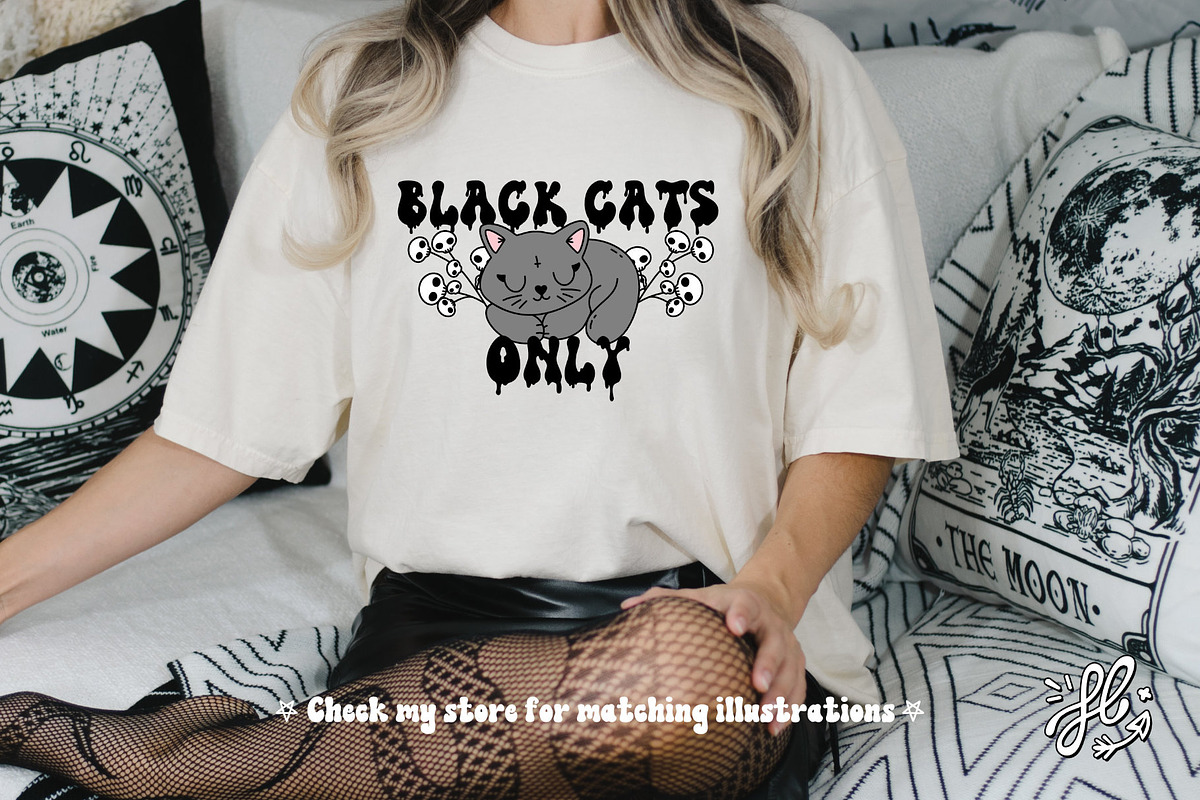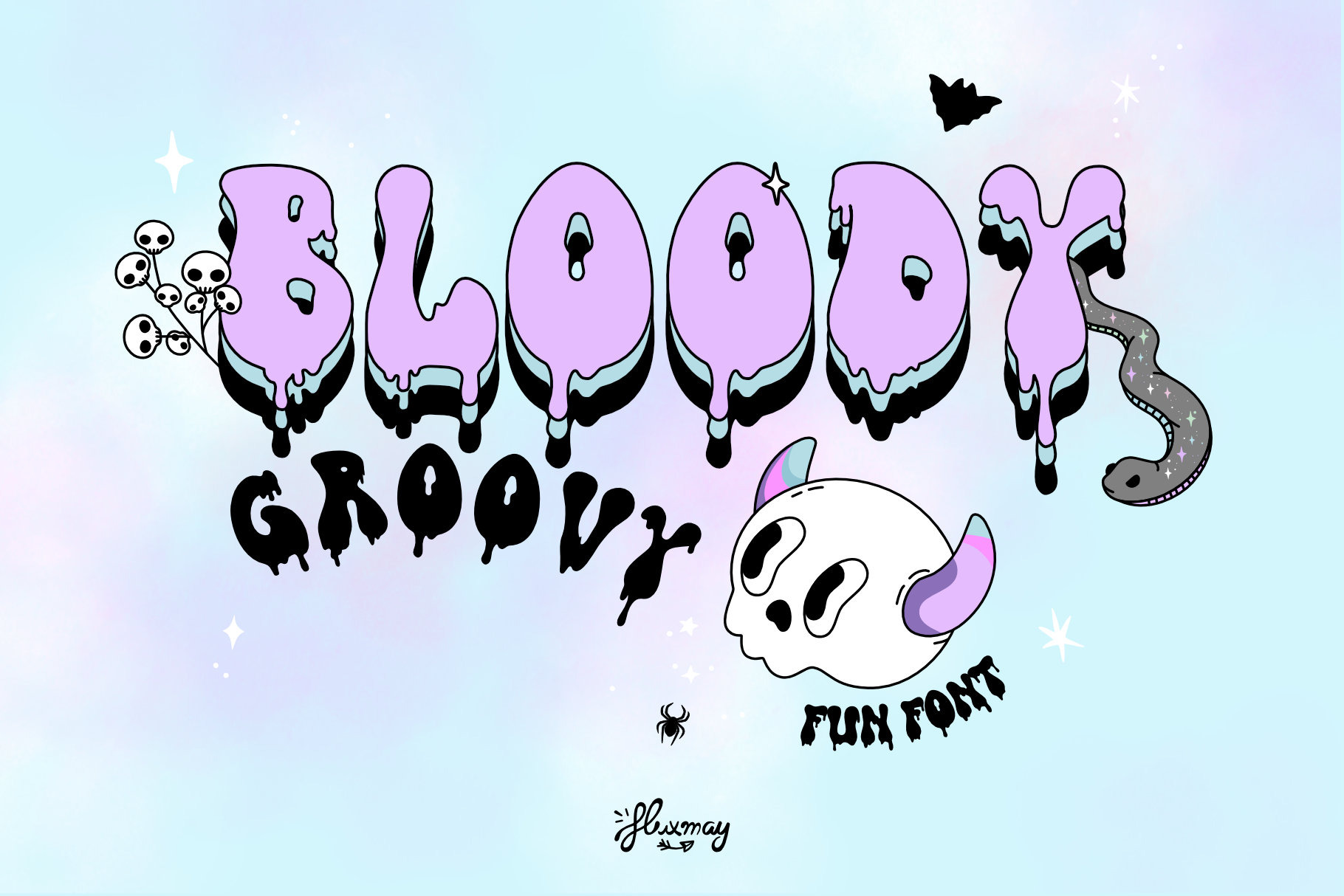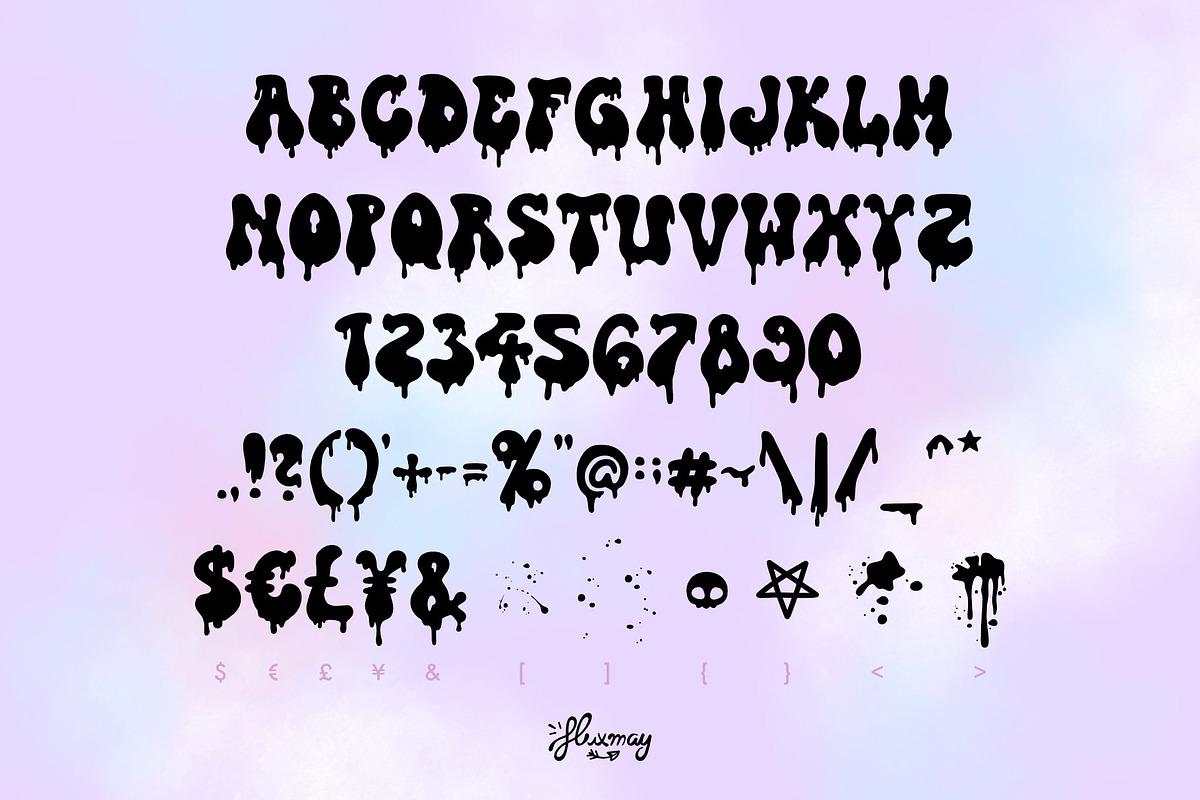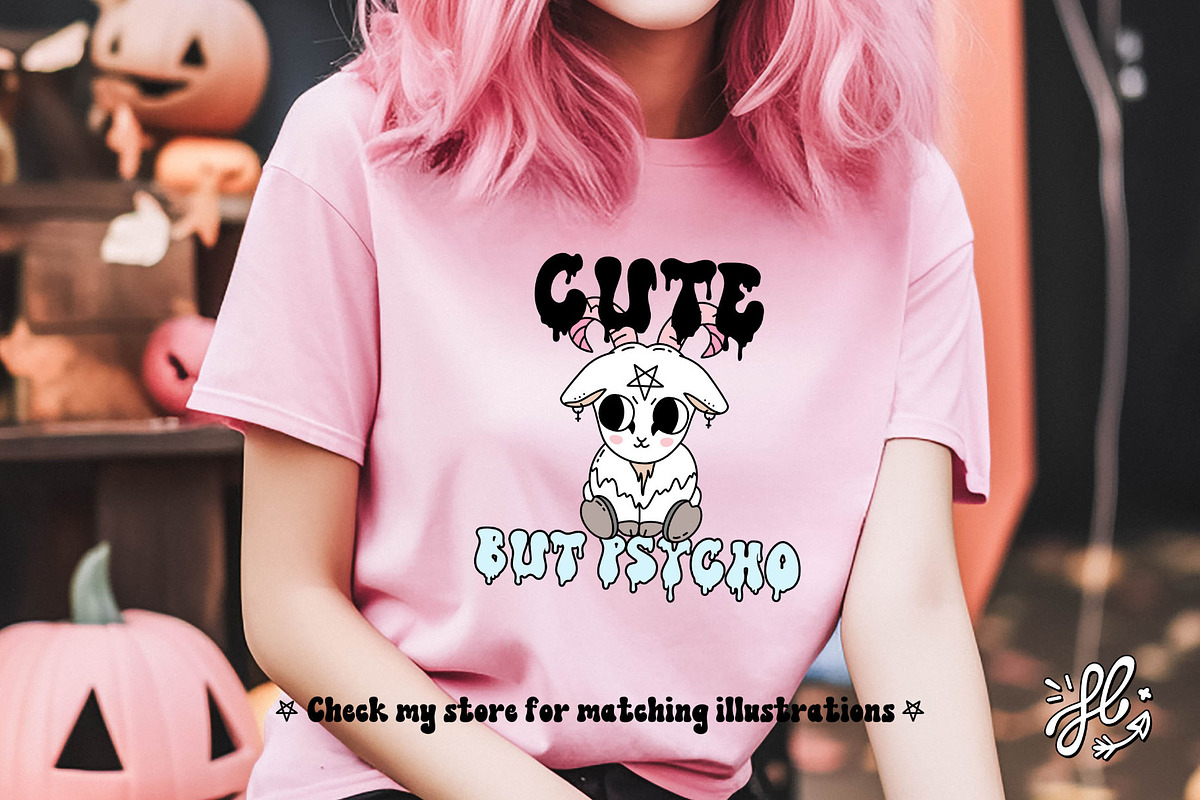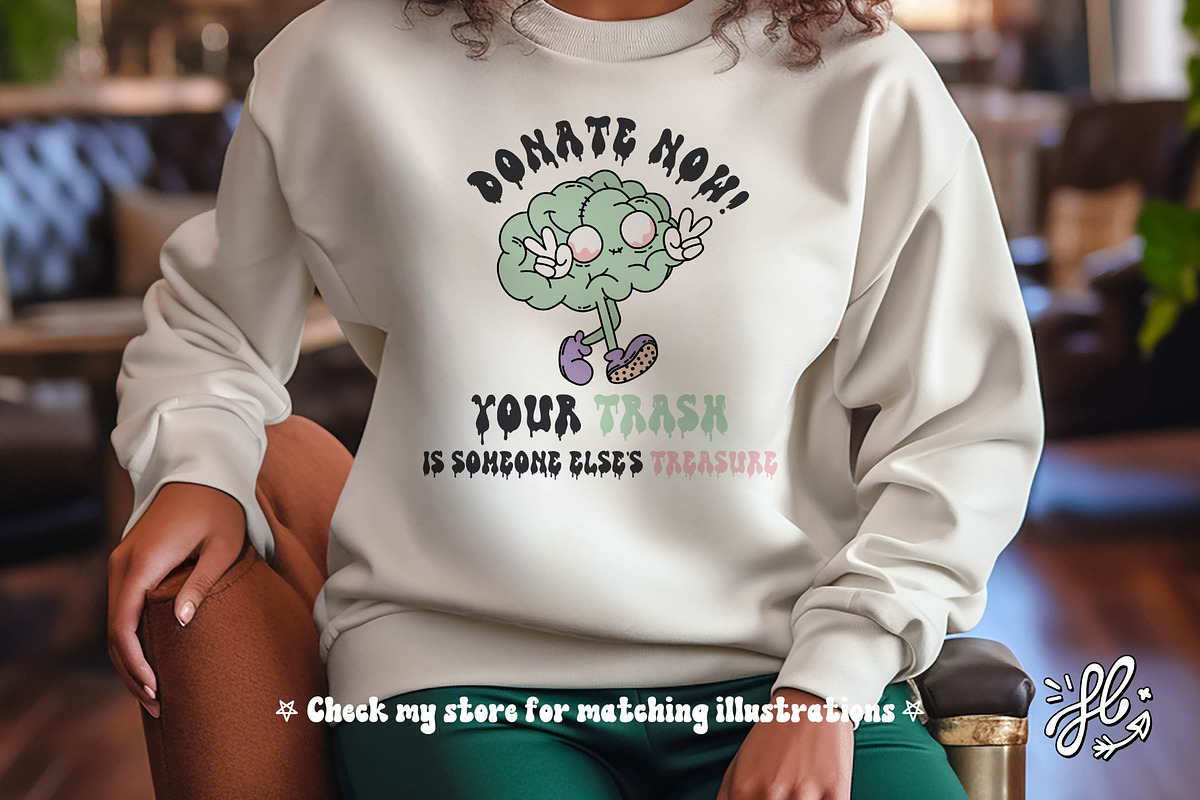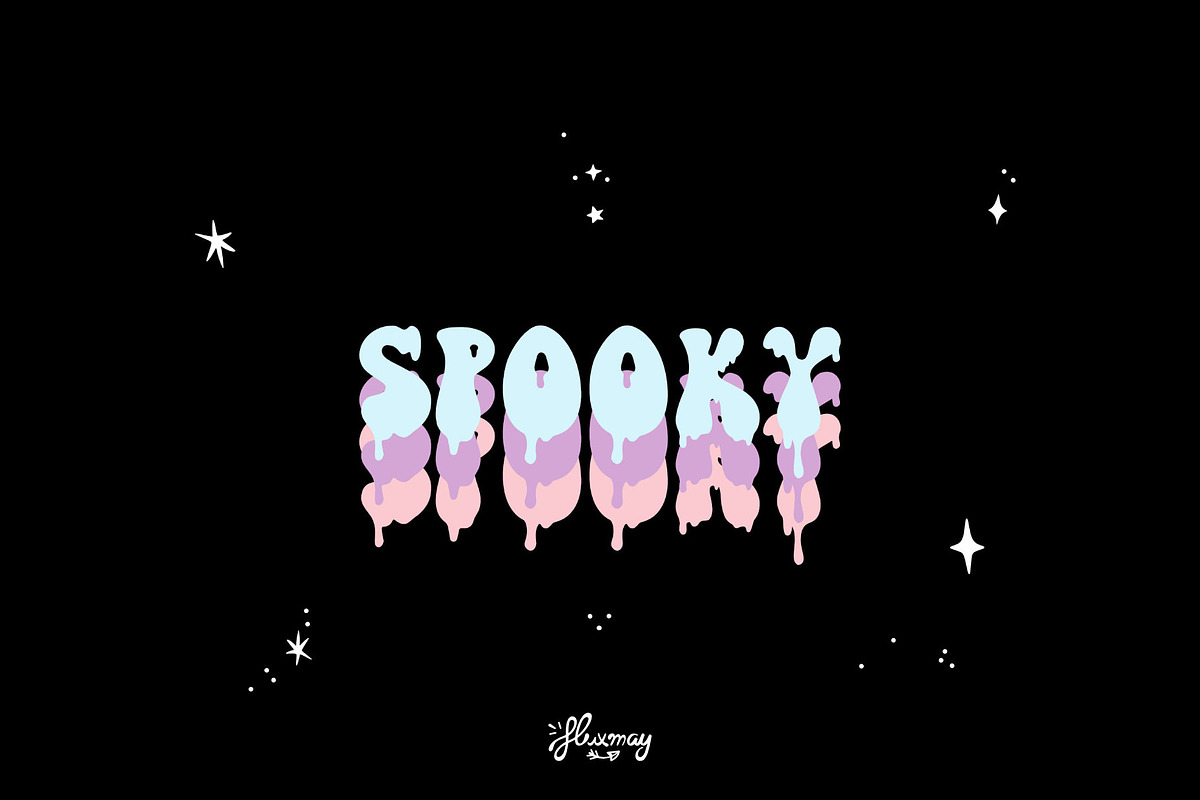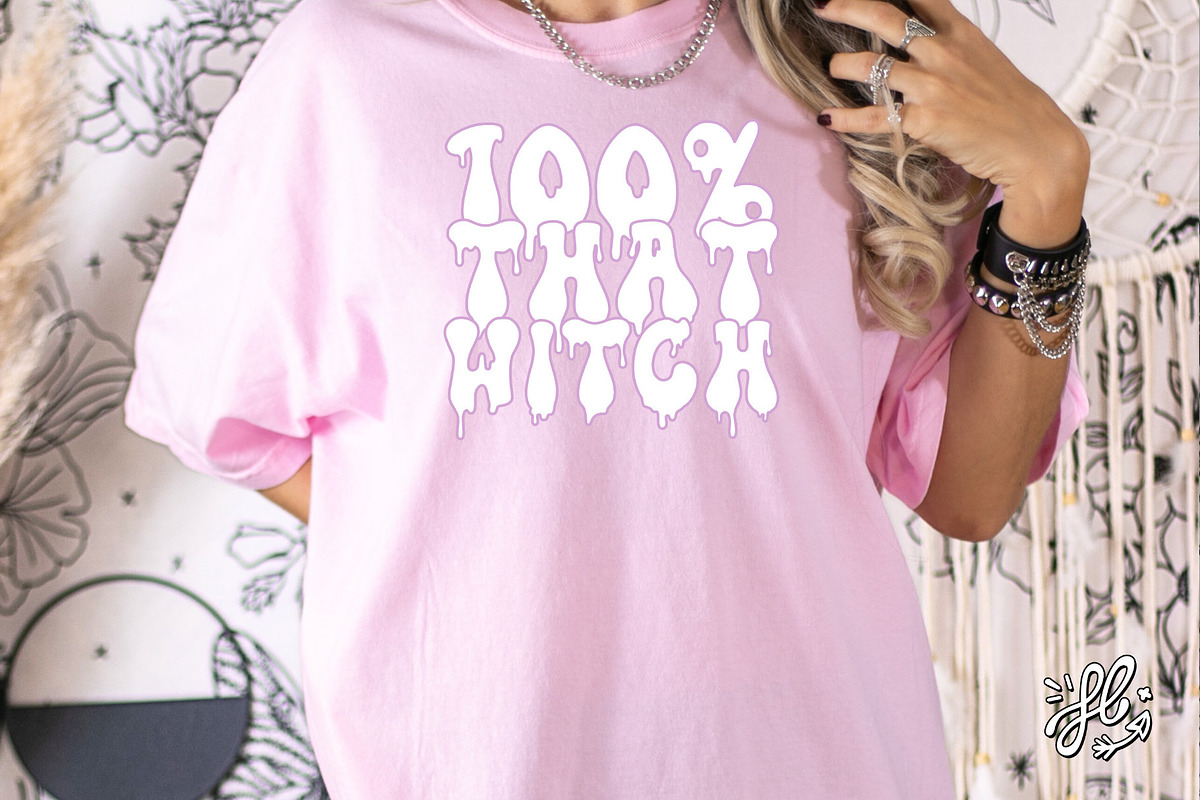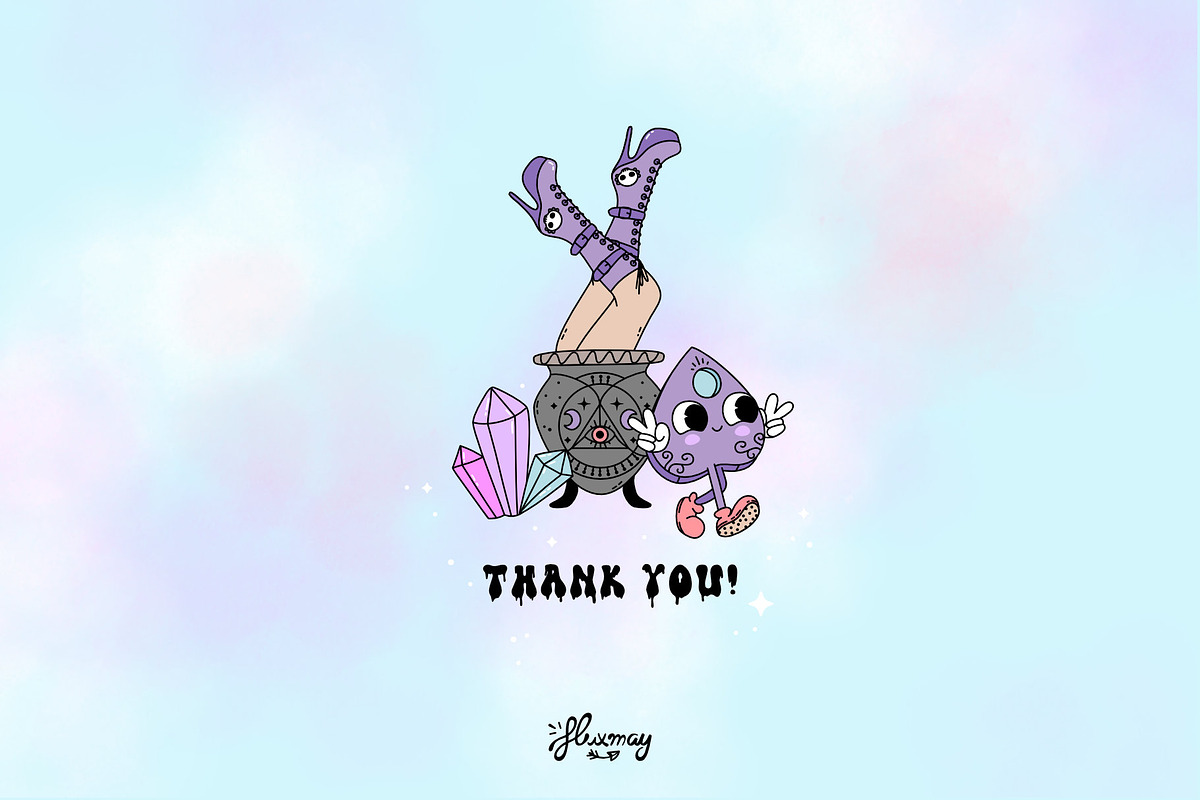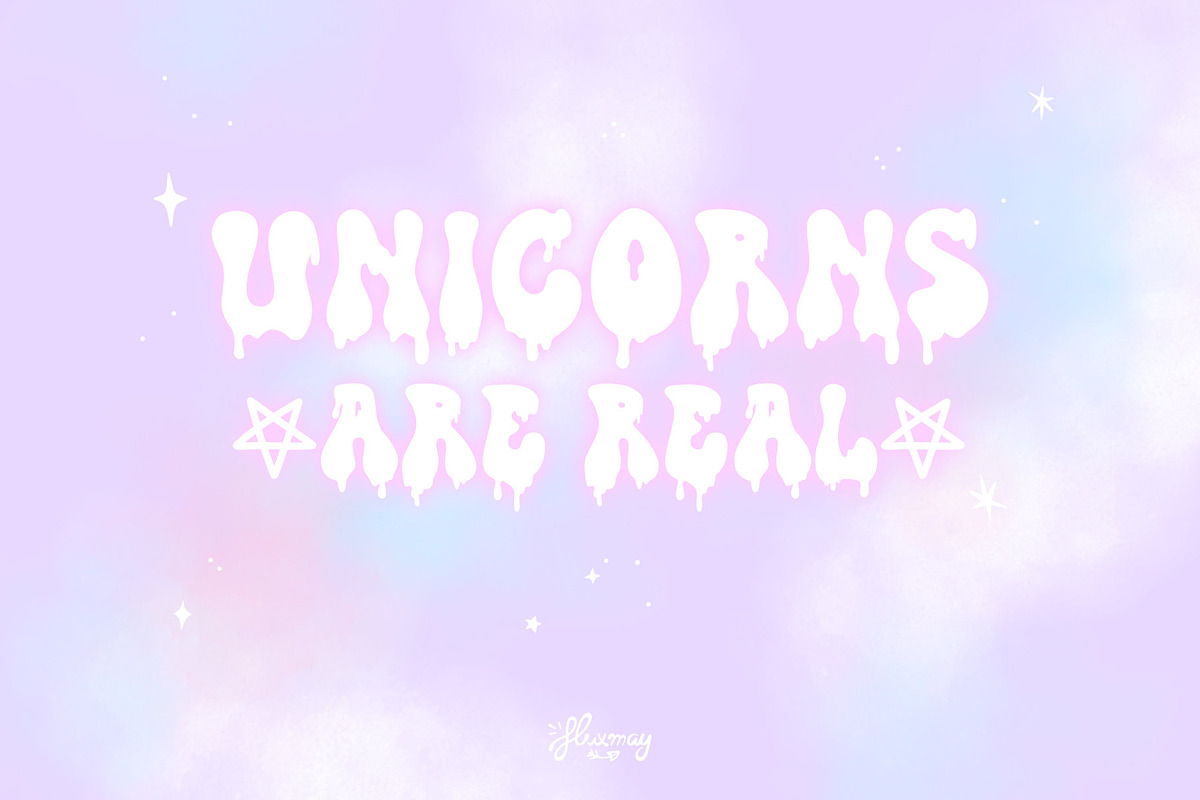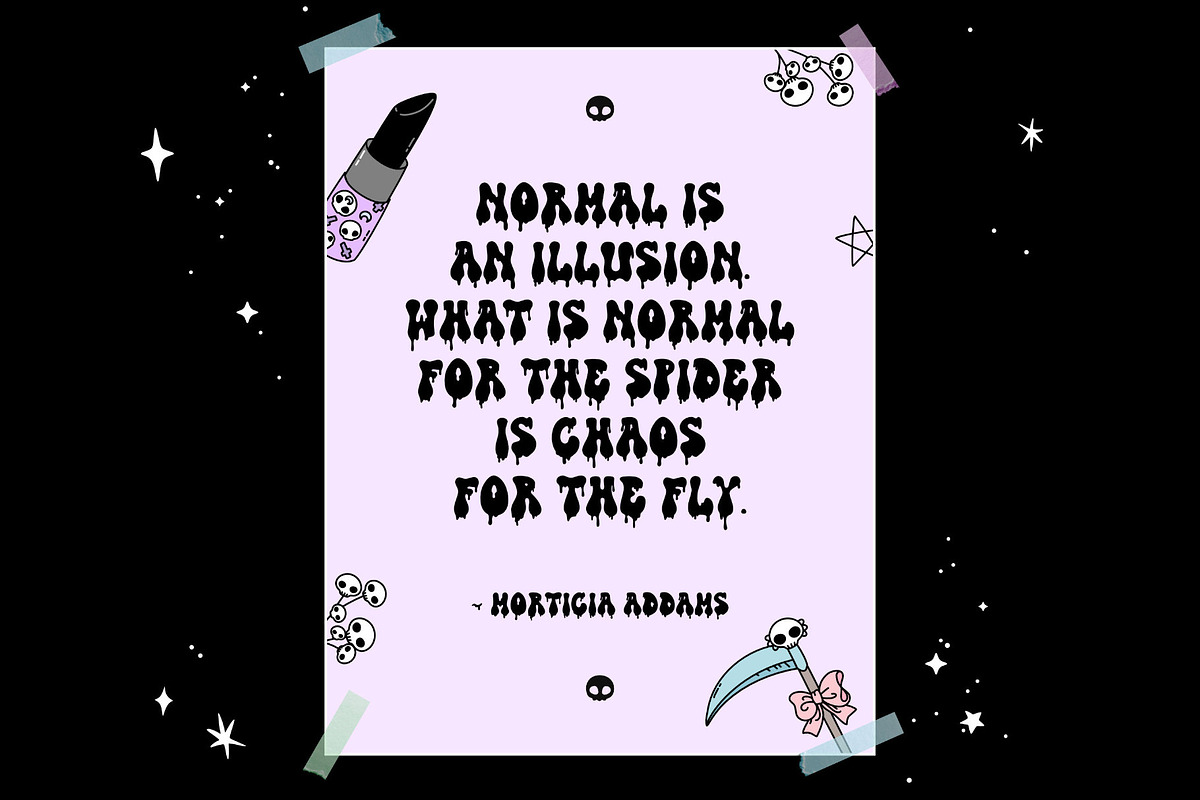
Bloody Groovy Halloween font
Let's continue in a creepy and dark mode ☠️ With groovy spooky bloody fun font 👻
Capital letters only with numbers and symbols.